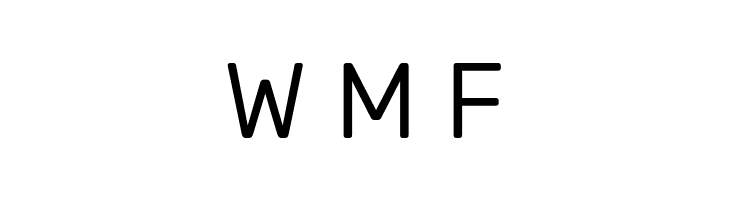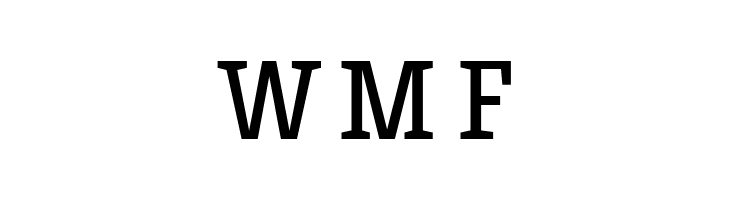
A refined, thin italic font with elegant and sophisticated styling.
A modern sans-serif font with clean lines and uniform stroke widths.
Ornate, high-contrast script with decorative swashes.
A decorative, high-contrast script font with ornate swashes.
A bold and italic font with a modern, dynamic slant.
A modern, italic font with clean lines and balanced proportions.
A classic serif font with modern elegance and excellent readability.
A bold serif font with strong strokes and a modern yet traditional aesthetic.
A light, elegant serif font with a refined and sophisticated appearance.
A modern serif font with medium weight and balanced proportions.
A modern serif font with clean lines and a classic touch.
A semi-bold serif font with balanced contrast and elegant serifs.
A casual, hand-drawn font with playful, irregular strokes.
A casual, handwritten font with a natural, flowing style.
A playful decorative font made entirely of diverse heart icons.
A bold, modern sans-serif font with a strong and confident appearance.
A bold, modern sans-serif typeface with excellent readability.
A bold, modern sans-serif font with clean, uniform letterforms.
A modern, light sans-serif font with low contrast and excellent readability.
A clean, modern sans-serif font with geometric letterforms and uniform stroke width.
A modern, thin sans-serif font with a clean and minimalist design.
A bold serif font with a classic yet modern style, featuring strong vertical lines and subtle curves.
A classic serif font with bold strokes and medium contrast, ideal for traditional and authoritative designs.
A modern, geometric sans-serif font with clean lines and uniform stroke widths.
A bold, impactful font with thick, uniform strokes ideal for headlines.
A bold, italicized font with strong, dynamic characters.
A bold, modern sans-serif typeface with strong lines and uniform width.
A modern, italic font with clean lines and a professional appearance.
A clean, modern sans-serif font with consistent stroke width and balanced spacing.
A modern, light, italic sans-serif font with sleek, fluid characters.